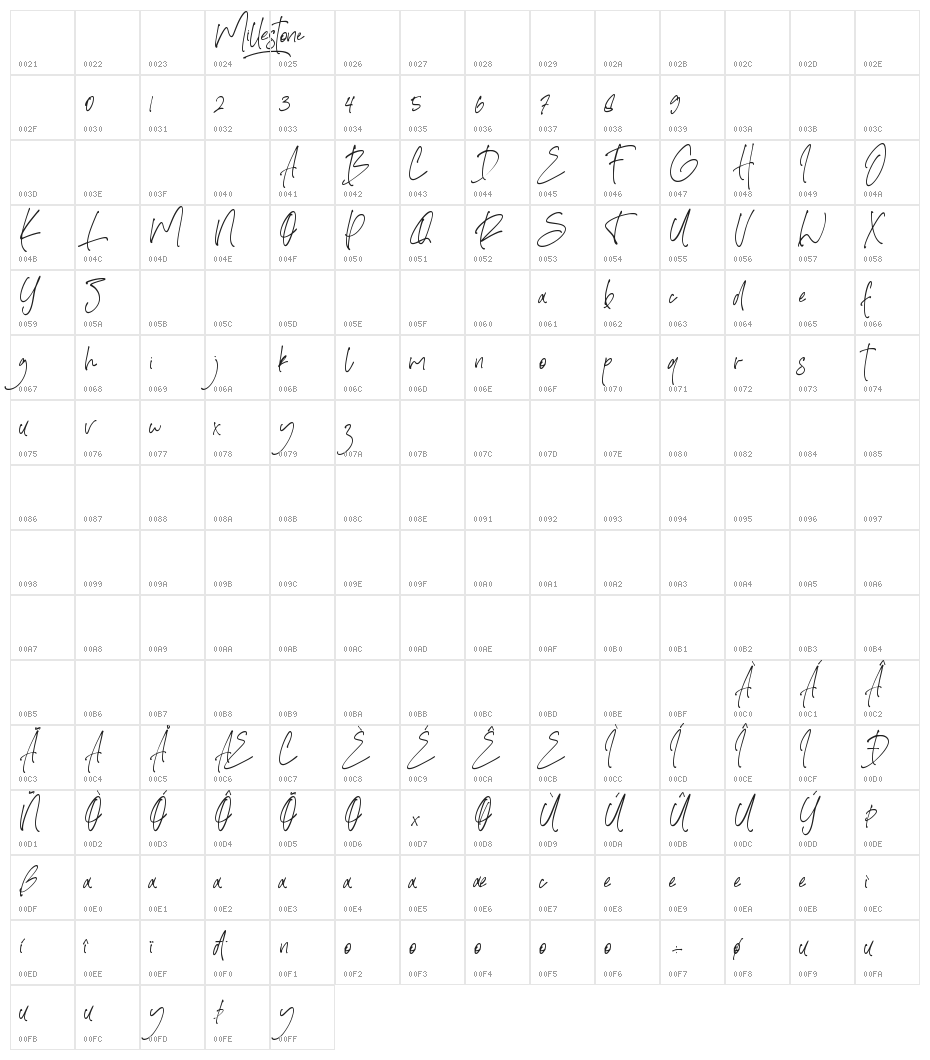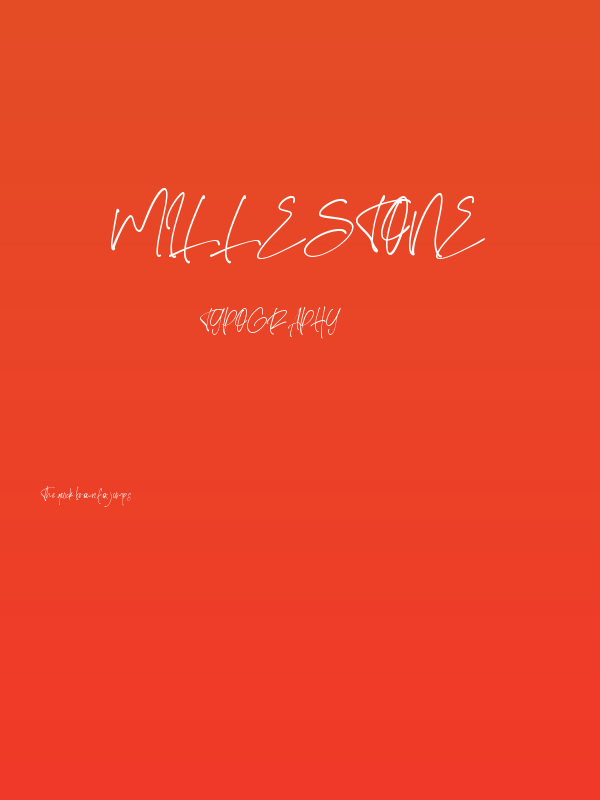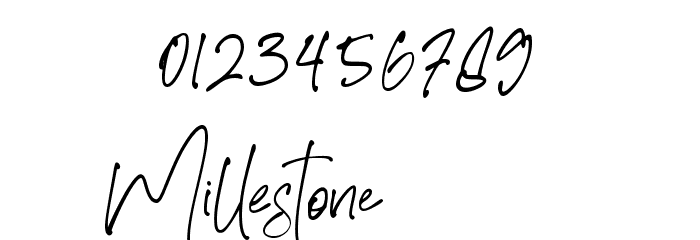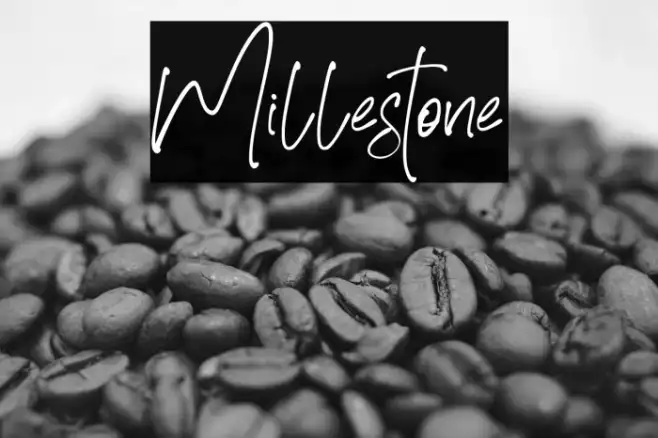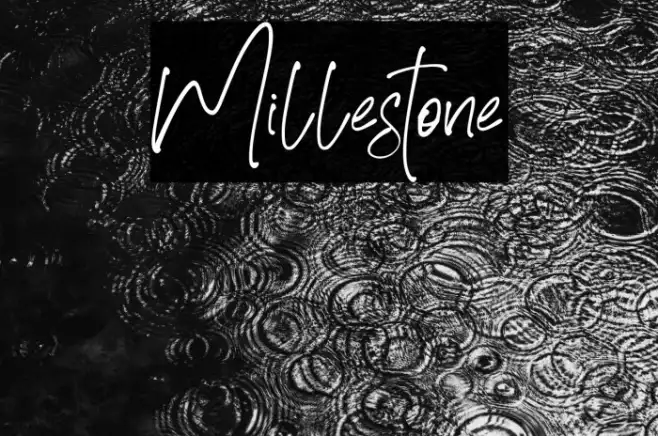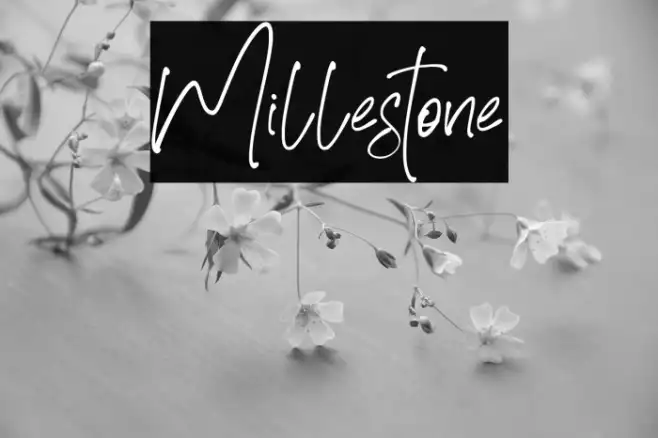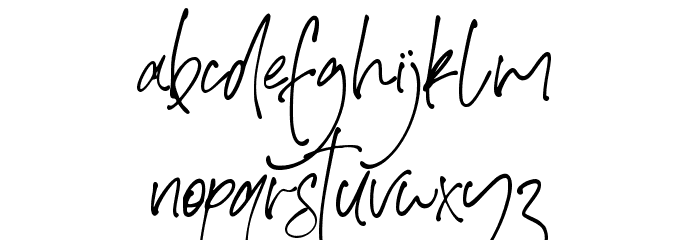
Millestone Font
Millestone Description
This font exhibits a lively and expressive handwritten style, characterized by its fluid and dynamic strokes. The letters are crafted with a natural flow, giving it an authentic and personal touch. The uppercase letters are bold and slightly elongated, while the lowercase letters maintain a consistent rhythm with elegant curves. The numerals are distinct and maintain the same handwritten charm. Special characters are seamlessly integrated, enhancing the font's versatility. This font's organic and spontaneous appearance makes it ideal for projects that require a personal or artistic flair.